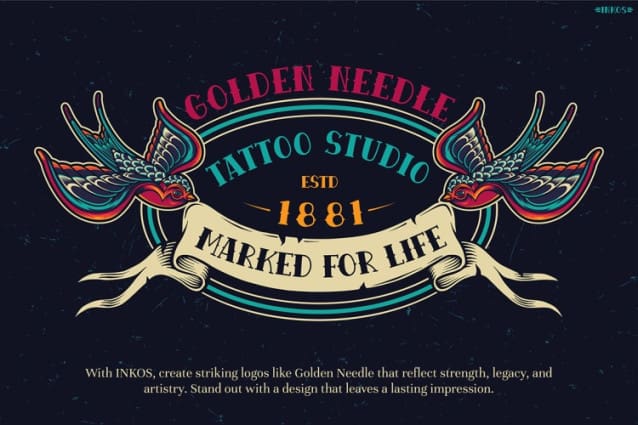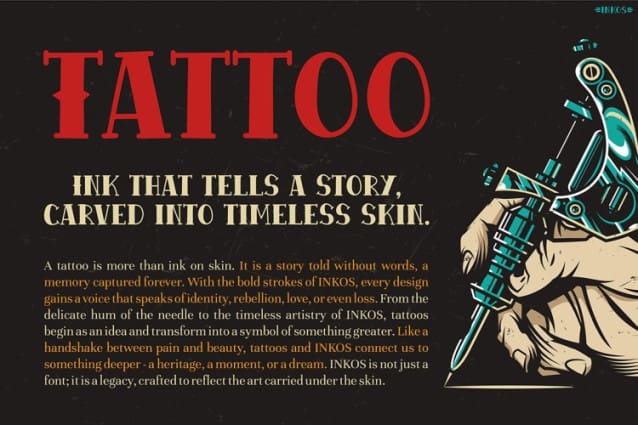
Inkos Display Font
Inkos Display Font: The tattoo font INKOS is a bold and dramatic typeface that is designed to make a strong statement. With its sharp, angular edges and intricate details, it perfectly captures the rebellious and artistic essence of tattoo culture. Moreover, the deep red tones and Gothic-inspired design lend it a timeless yet edgy appearance, making it ideal for projects that require a balance between tradition and modernity. In addition to its striking visual elements, the floral motifs, particularly the roses paired with the skull, evoke themes of life, death, and beauty, creating a visually compelling harmony. Therefore, Inkos Display is not just a typeface but also a storytelling element that adds depth to your design.
Furthermore, the INKOS tattoo font is crafted with versatility in mind. It seamlessly blends into designs for apparel, signage, posters, and branding. For instance, its vintage yet contemporary style ensures it can adapt to a variety of artistic expressions. Whether you’re aiming to design something fierce or romantic, this font has the flexibility to fit your creative vision.